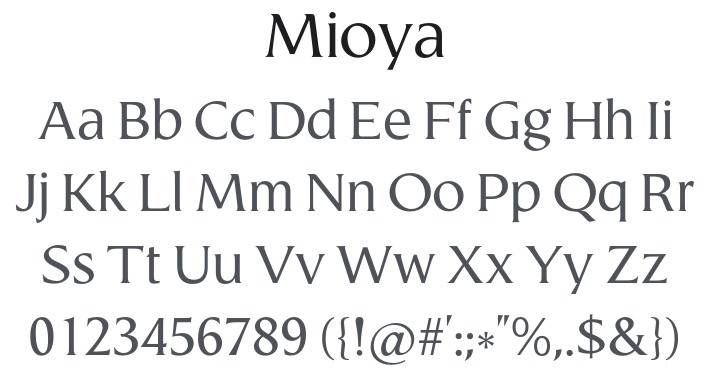
Mioya Font Family
by dot colon
Mioya Font Family
About Mioya
Mioya is a serif typeface featuring a design that evokes a sense of old-fashioned nostalgia.